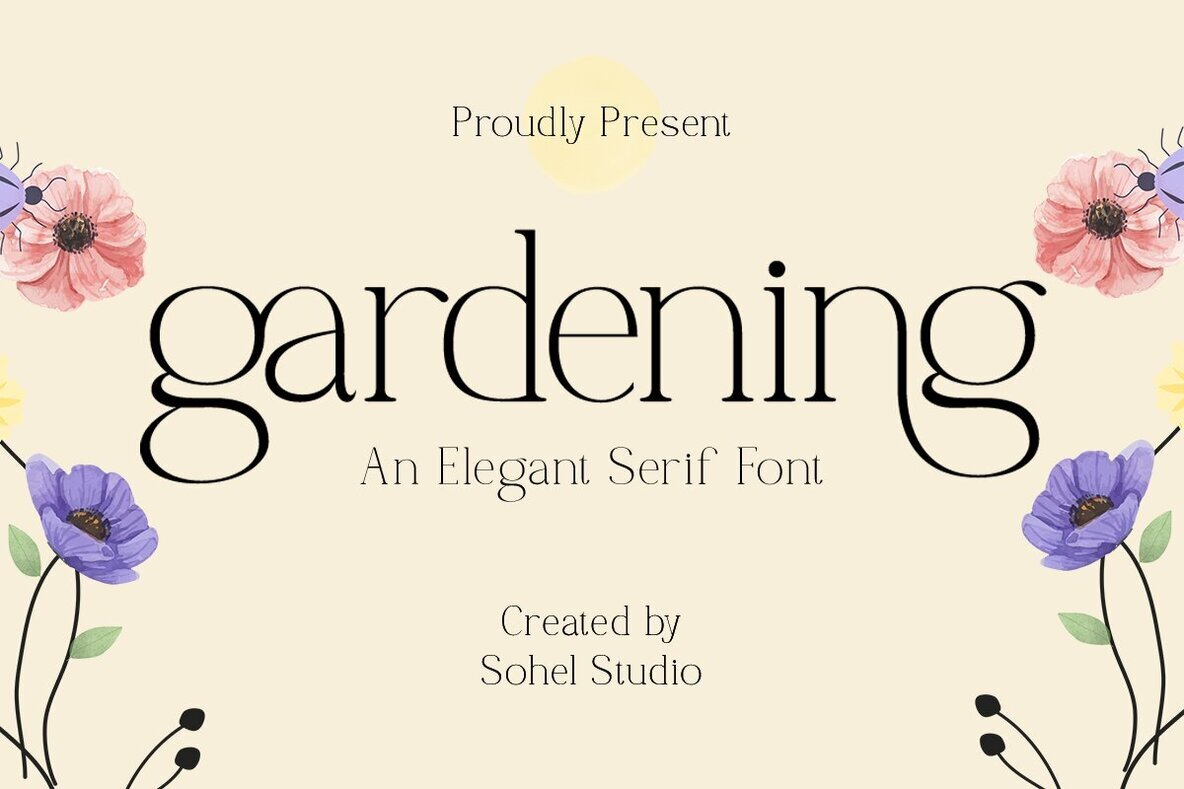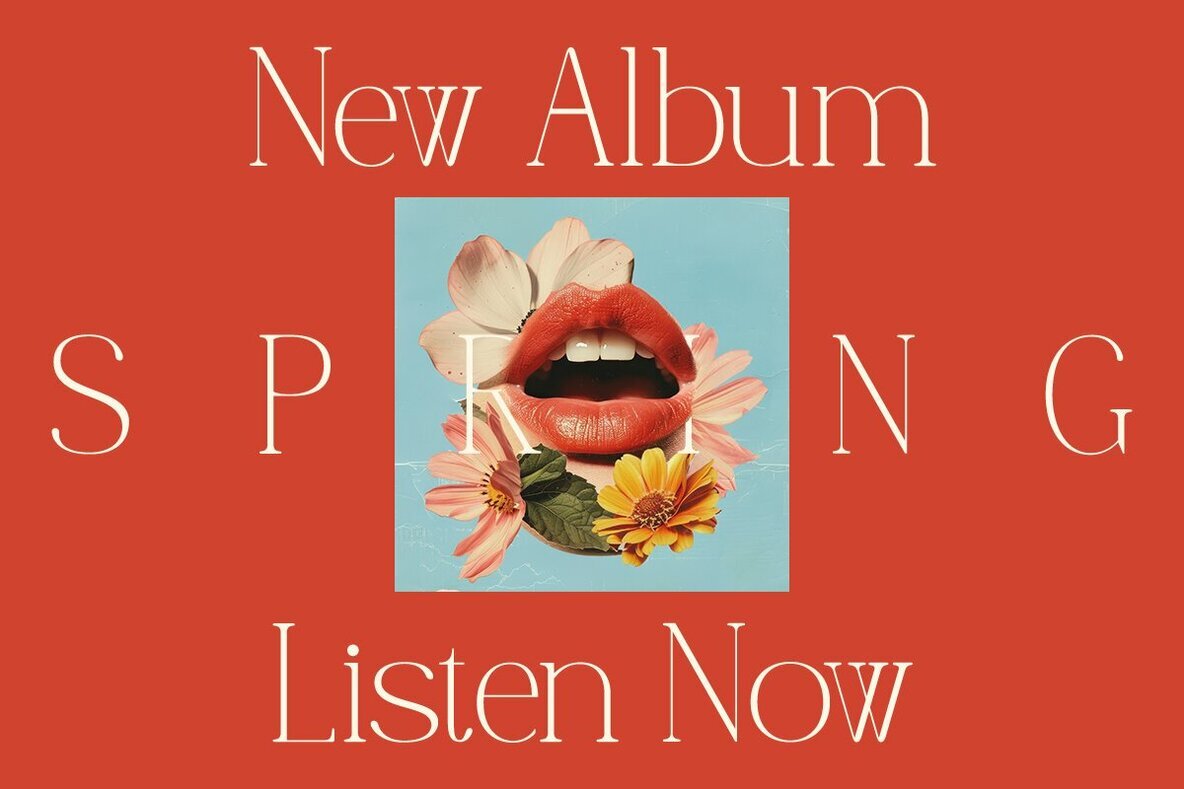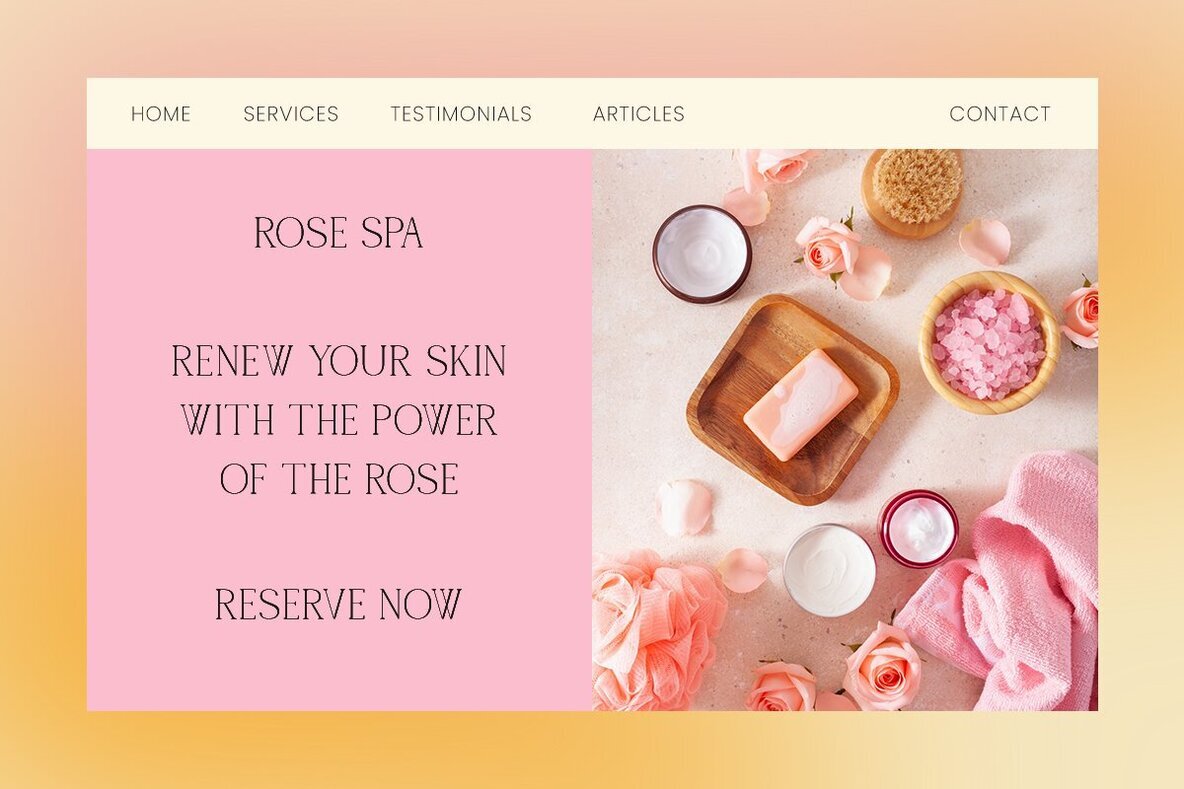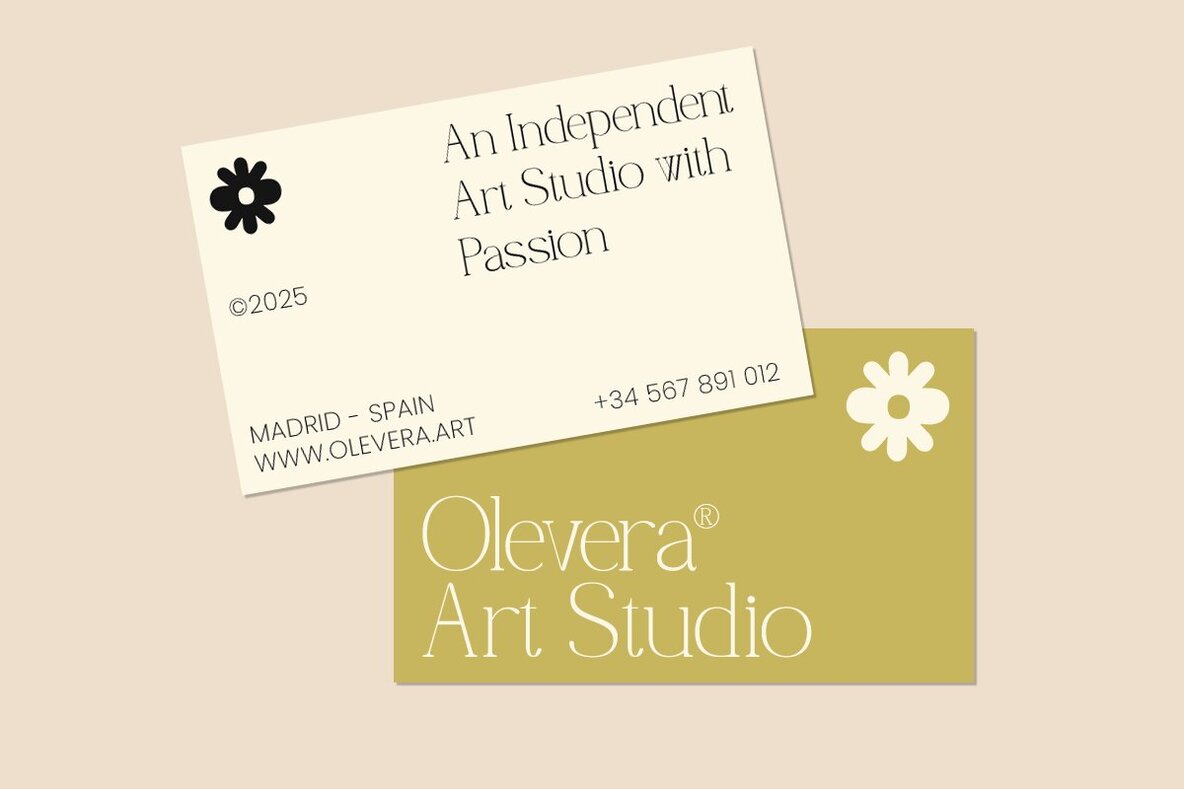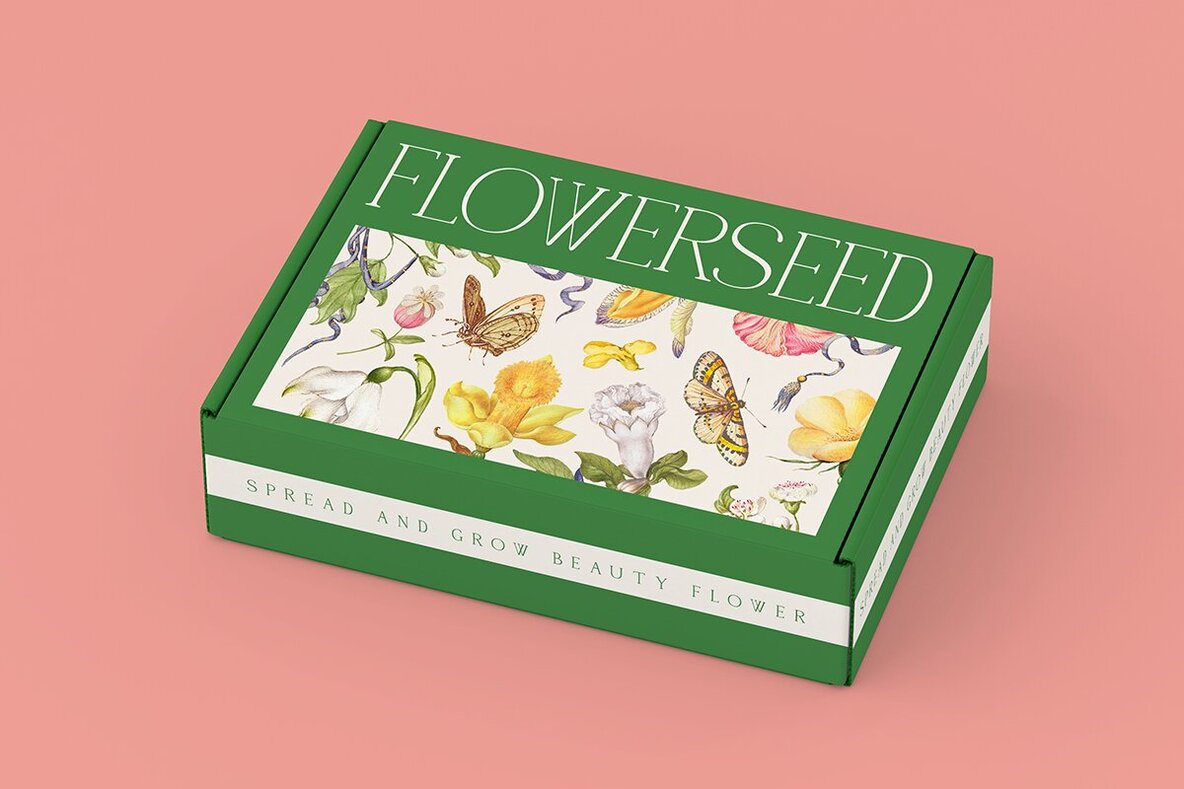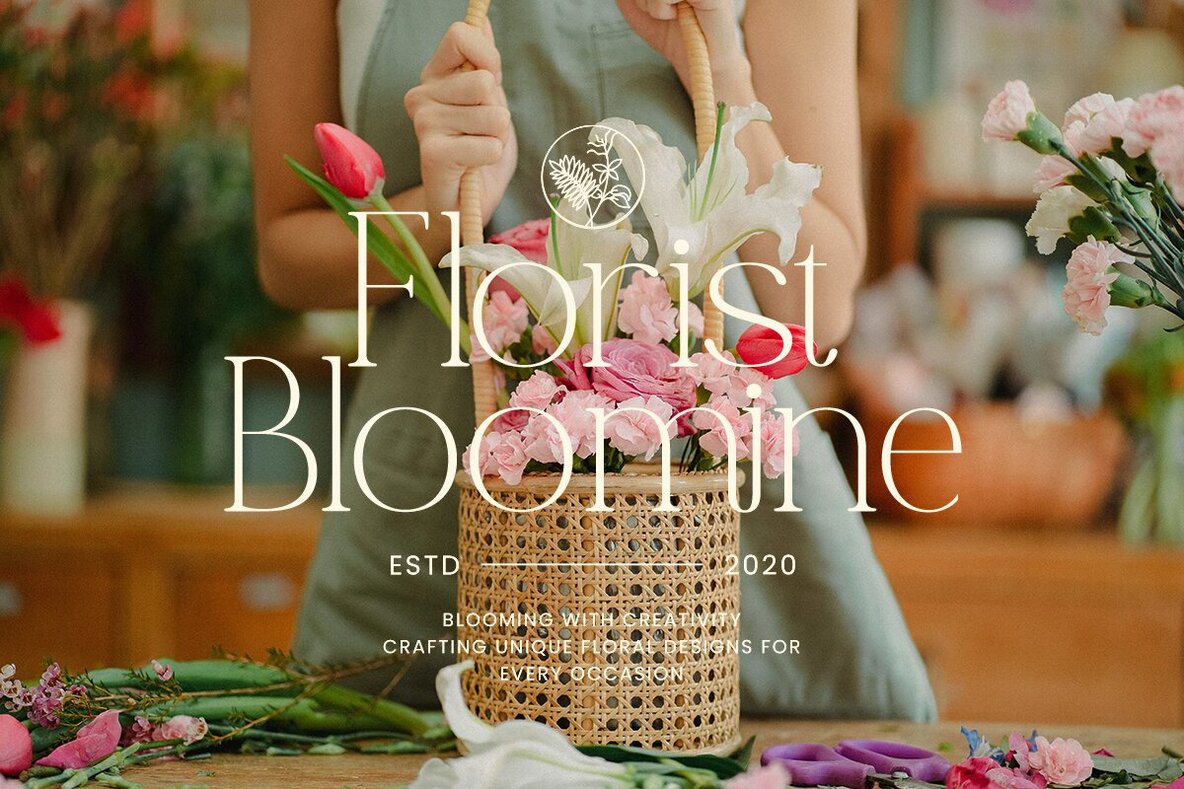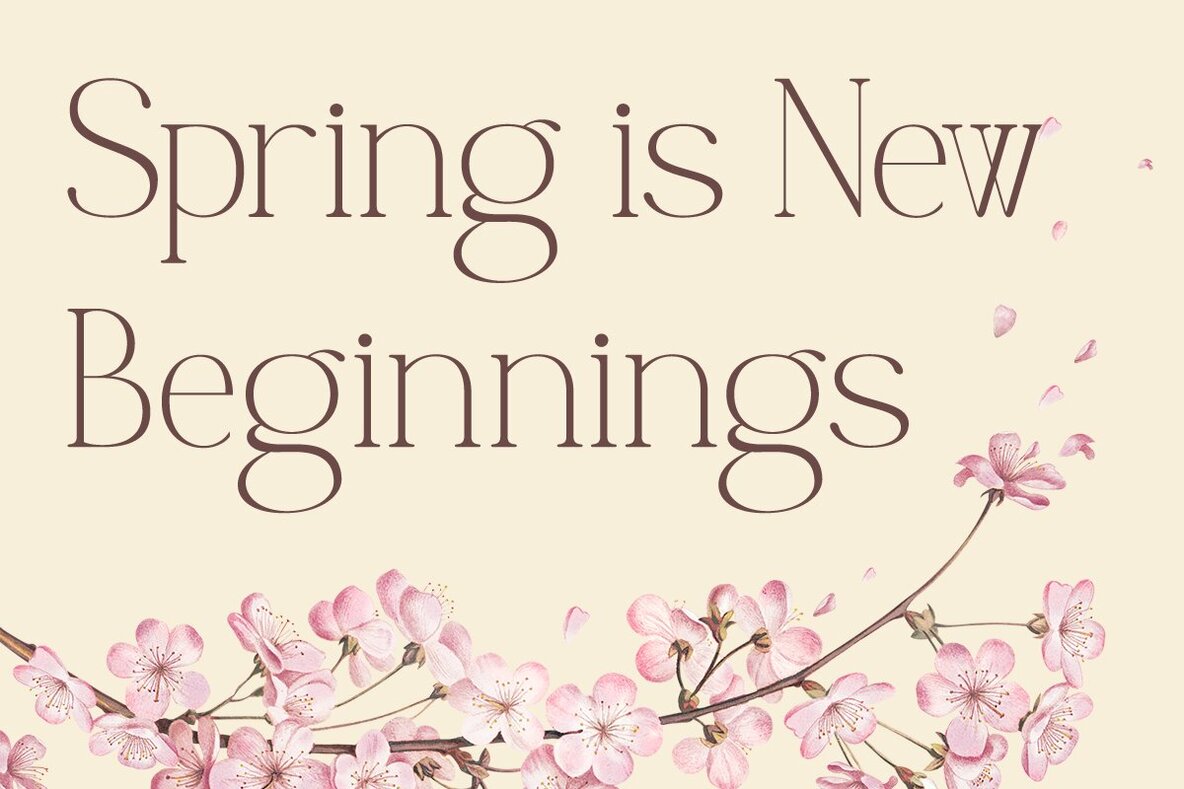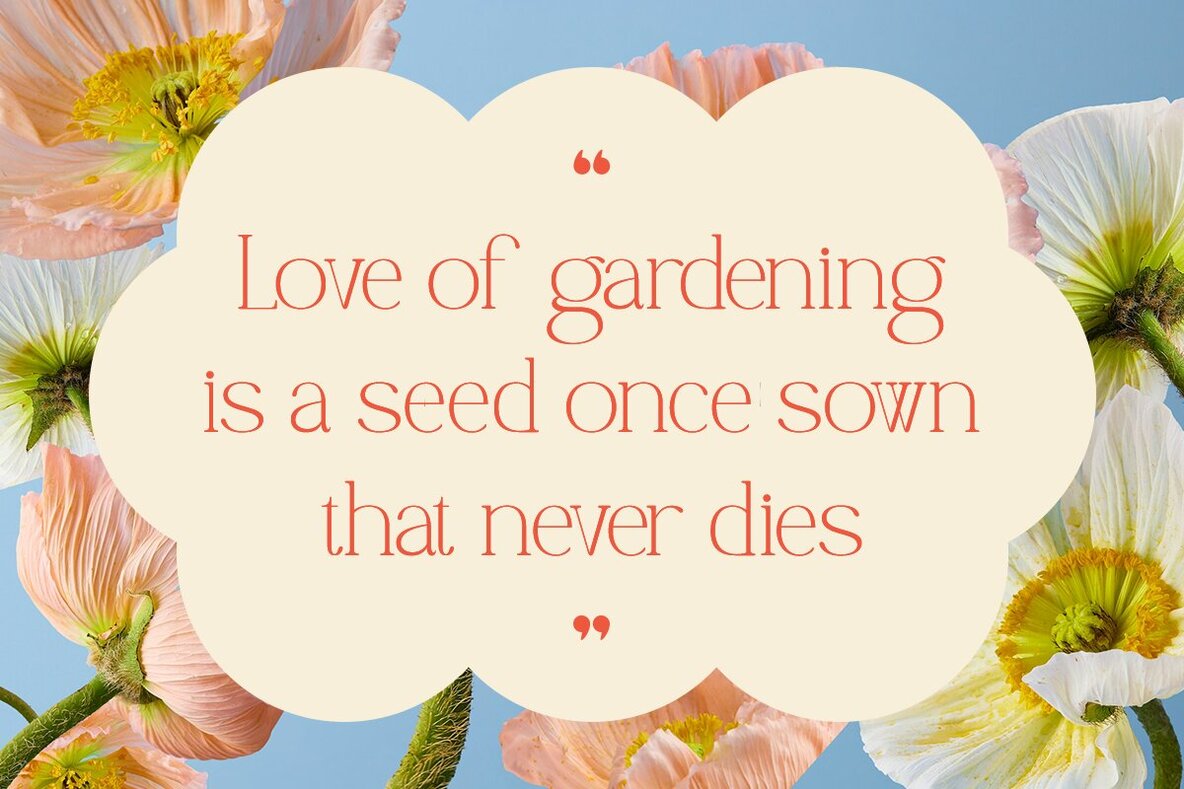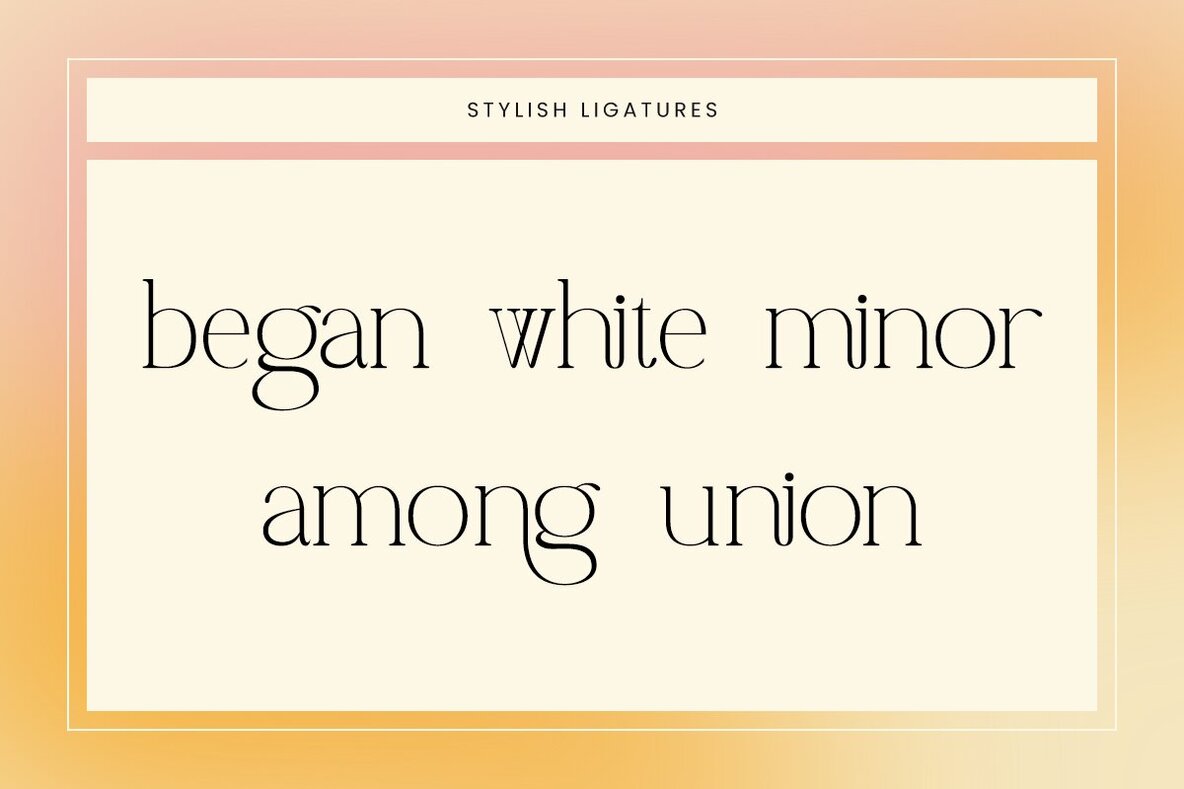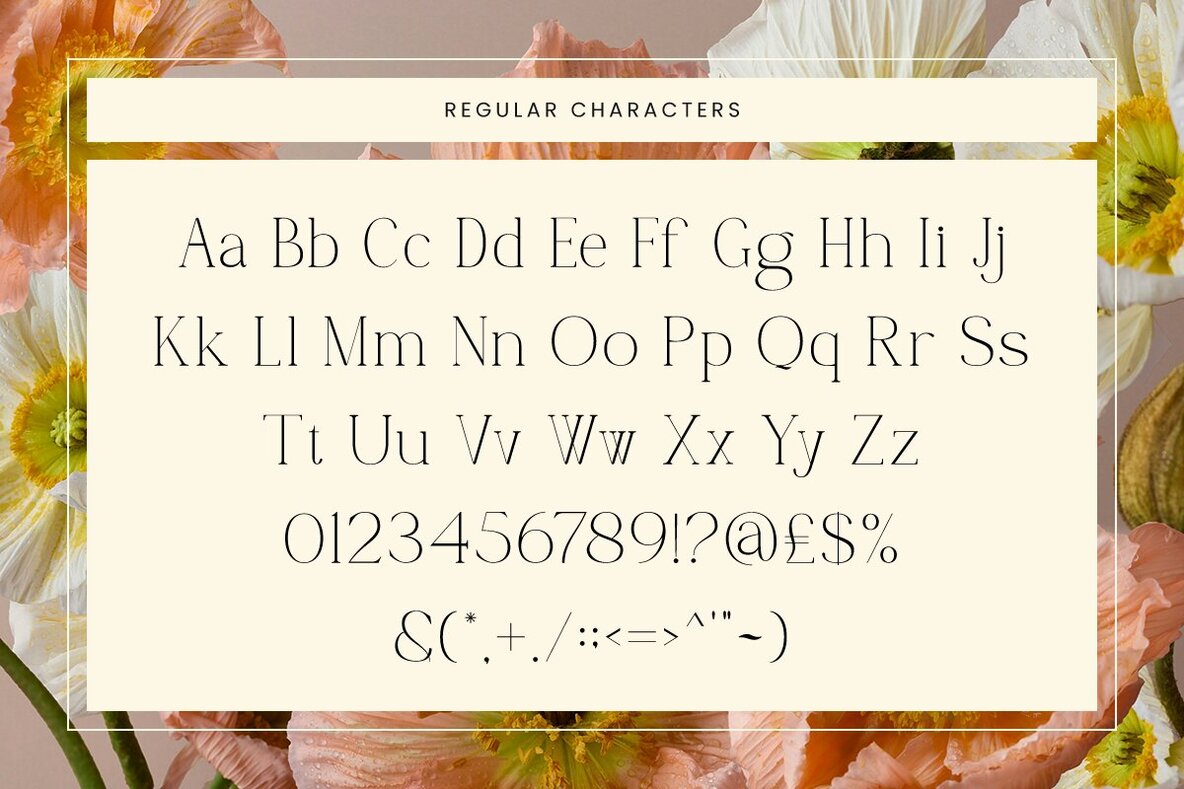
Gardening Font
Gardening Regular
Gardening is an elegant serif font with a natural touch, perfect for various creative projects. Its sleek design and graceful letterforms make it ideal for branding, invitations, magazines, packaging, and more. With unique typographic elements, Gardening brings a classic yet modern feel. Features: What's Included: Elevate your design projects with the timeless elegance of Gardening. Add this beautiful serif font to your collection today and start creating stunning, high-end designs with ease. Click "Add to Cart" now to get started!